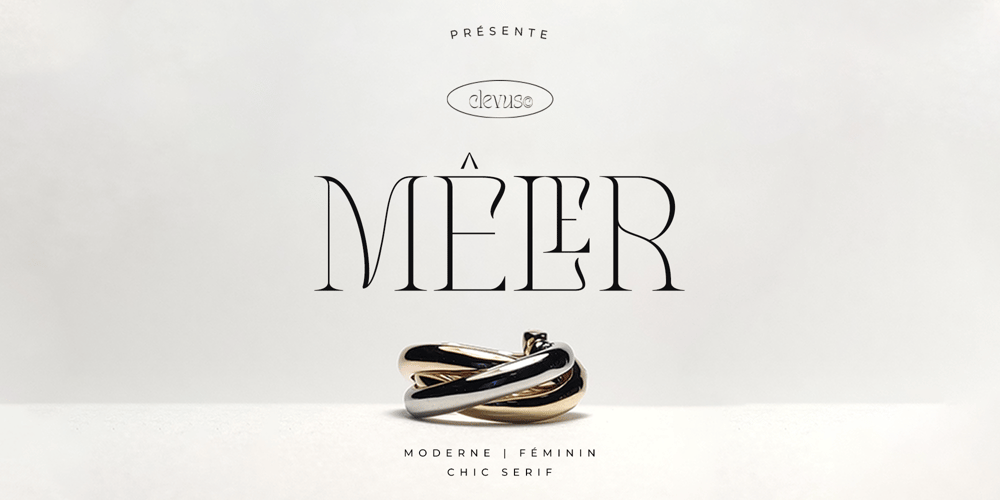
Meler Font Family was designed by Alfinu Zafir and published by Clevus. Meler contains 1 styles and family package options. Proudly present Meler a modern ligature serif font with a touch of elegant.Meler a modern ligature serif font that draws inspiration from the iconic style of the era. Its regular and edgy lines make it the perfect choice for creating retro-inspired logos, fashion brand, magazine, clothes, lettering, quotes, and other design materials. With Meler, you can effortlessly infuse your work with a touch of nostalgia and capture the essence of the 90s in your designs.Font Features : Lettres, numbers, symbols, and punctuation 33 alternates and ligatures No special software required they may be used even in canva, any basic program /website apps that allows standard fonts That’s it folks! Multilingual SupportLanguage Support: Danish, English, Estonian, Filipino, Finnish, French, Friulian, Galician, German, Gusii, Indonesian, Irish, Italian, Luxembourgish, Norwegian Bokmål, Norwegian Nynorsk, Nyankole, Oromo, Portuguese, Romansh, Rombo, Spanish, Swedish, Swiss-German, Uzbek (Latin)Follow My Shop For Upcoming Updates Including Additional Glyphs And Language Support. And Please Message Me If You Want Your Language Included or If There Are Any Features or Glyph Requests, Feel Free to Send me A Message.Kindly check over on Instagram! https://www.instagram.com/clevustudio/Have a Good Day !